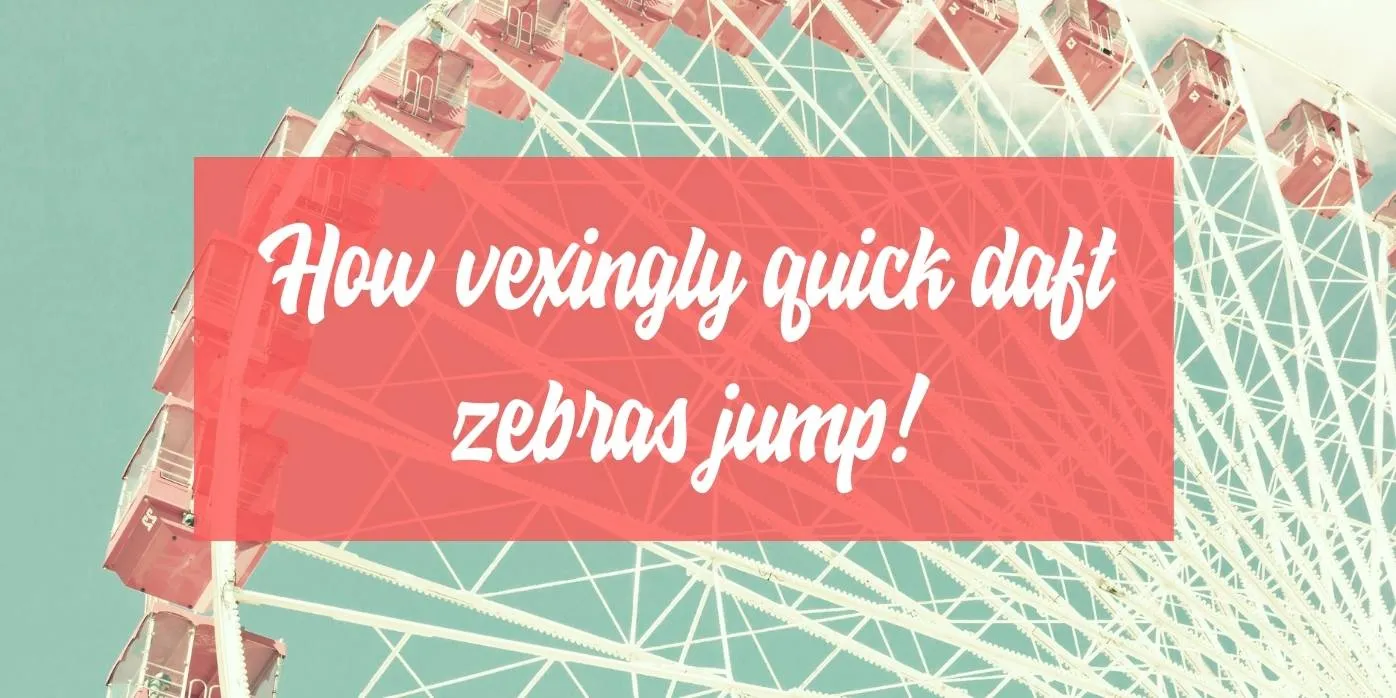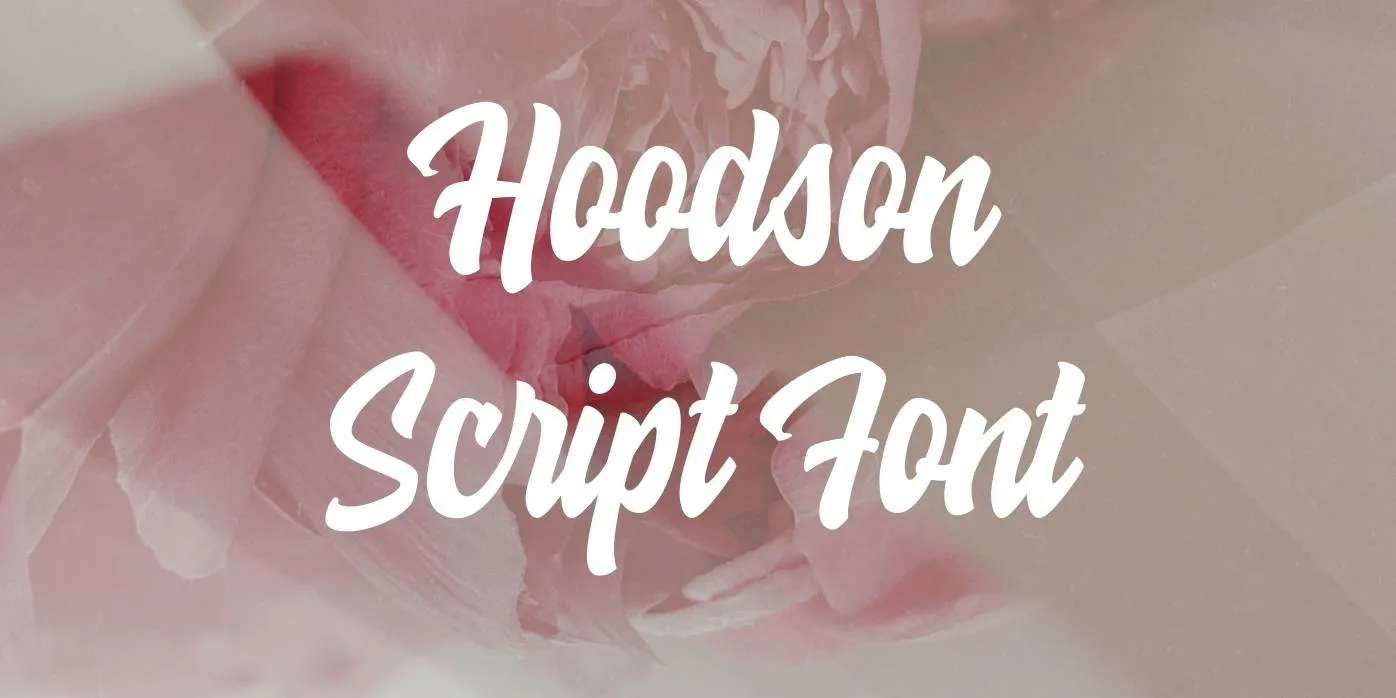
Hoodson Script Font
Hoodson Script Font is a beautiful handwritten font with a personal touch. It belongs to the Script typeface. This typeface was designed by Dirty line Studio. It is perfect for branding, invitations, quotes, signatures, and more.
This font is used for personal and commercial use. This stunning typeface is available in five special styles Regular, Alternate, Swash, Lining, and Titling. All these styles are available in TTF format. Its round corners, natural flow, and slant make it an excellent choice for both digital and print design.
This cute Font also supports multiple languages. For more features use its similar Thrasher Font. Space between its characters is very limited, so it is best used in headlines and short paragraphs. The regular style of this font contains 402 glyphs, while the other styles have more than 1000 glyphs.